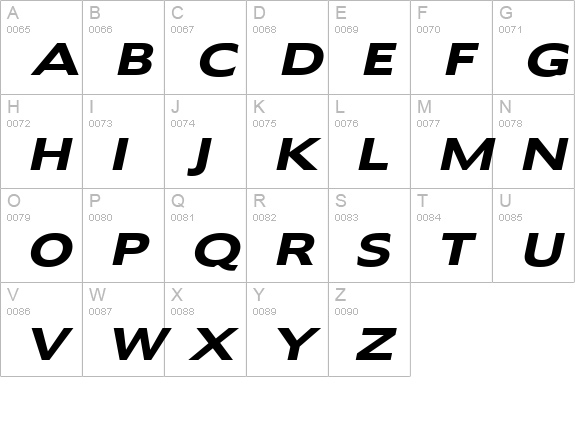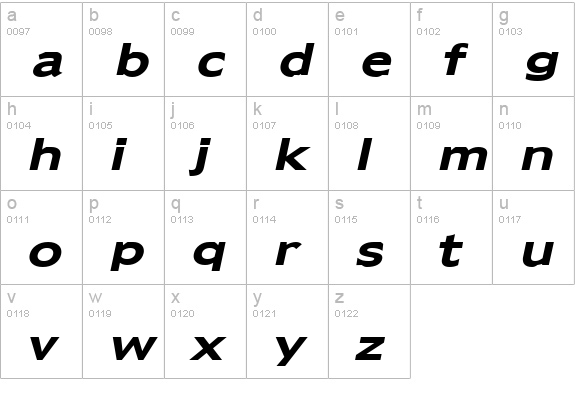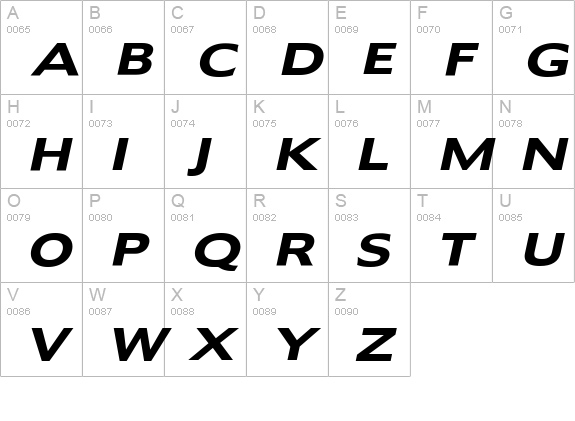
Adams Wide Bold Italic is a strong, high-contrast, extended-width, italic variant in the Adams typeface family \xE2\x80\x94 well suited to headlines, attention-grabbing titles, and strong calls-to-action.
Adams Wide Bold Italic font is a striking and modern typeface that exudes confidence and sophistication. Its bold strokes and italicized style make it perfect for adding emphasis and flair to any design project. With its wide letter spacing, Adams Wide Bold Italic commands attention and stands out on both digital and print media. The best part about Adams Wide Bold Italic font is that it is available for free download at FontsMarket.com. This means that you can easily access and use this stylish font in your projects without any cost. Whether you're creating posters, logos, or social media graphics, Adams Wide Bold Italic font will elevate your design and leave a lasting impression on your audience. Download Adams Wide Bold Italic font now from FontsMarket.com and take your designs to the next level with this eye-catching and versatile typeface.